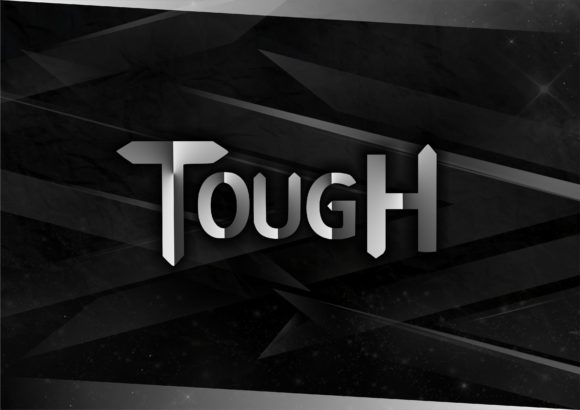
Unveil your inner boldness with Tough Font, the ultimate display font that radiates power and determination. Its robust strokes and commanding presence will leave an indelible mark on your creative endeavors, making it the perfect choice for those seeking a font that exudes strength and confidence.
With Tough Font as your artistic weapon, transform your movie titles, posters, and graphic creations into cinematic masterpieces. Its ability to support knight characters adds an aura of medieval courage and intrigue, making it perfect for capturing the essence of epic tales and heroic adventures.
Immerse yourself in the world of Tough Font and discover a font that sparks creativity and fuels your imagination. Its compatibility with industry-leading tools like Photoshop Design Studio ensures seamless integration into your design workflow, allowing you to effortlessly bring your visions to life.
Whether you're designing an inspiring wall poster to uplift spirits or crafting the captivating title of your next best-selling novel, Tough Font stands ready to elevate your words and leave a lasting impression on all who encounter them. Its firmness and unwavering stance make it the ideal companion for projects that demand attention and refuse to be ignored.
Embrace the strength of Tough Font and let your creativity soar to new heights. Its unwavering boldness will empower your designs, leaving a trail of intrigue and inspiration in its wake. Unleash the warrior within and embark on an artistic journey like no other, where Tough Font will be your unwavering ally in the quest for visual excellence.